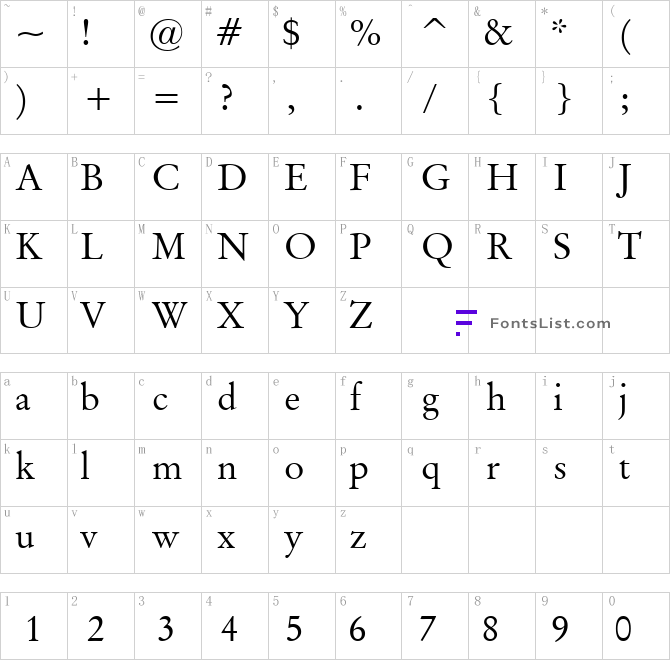
- Font Name:Baramond
Baramond.ttf is a very beautiful artistic font, Baramond.ttf is widely used in the design and printing of various books and pictures,Baramond.ttf has a strong visual impact,Baramond.ttf is a commonly used font in newspapers, magazines and books, and is used in posters, e-commerce Poster design, store design, logo design, font design and other fields.Baramond.